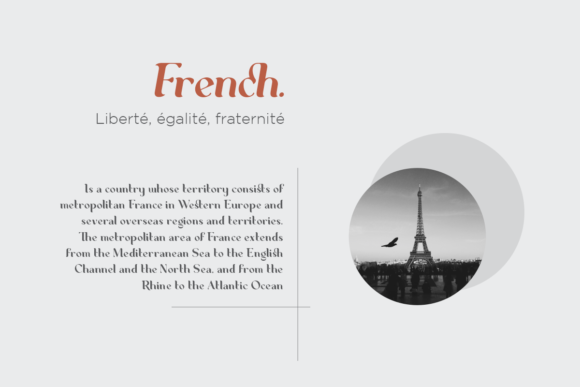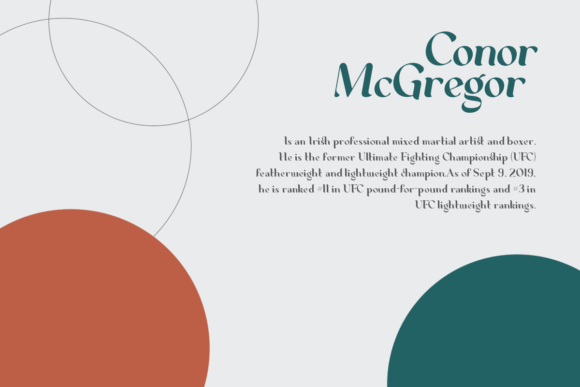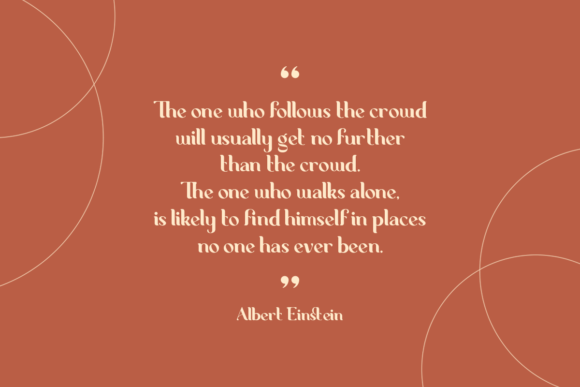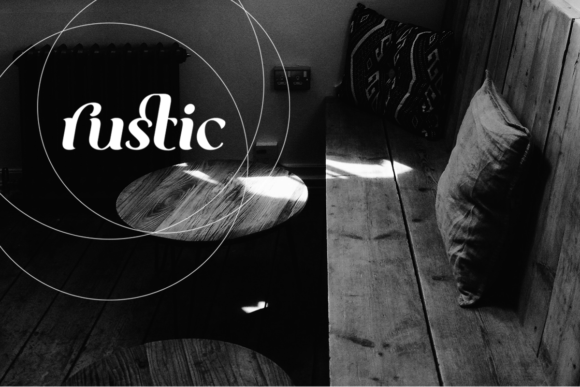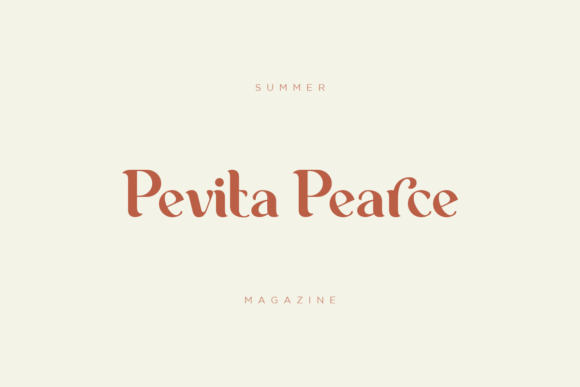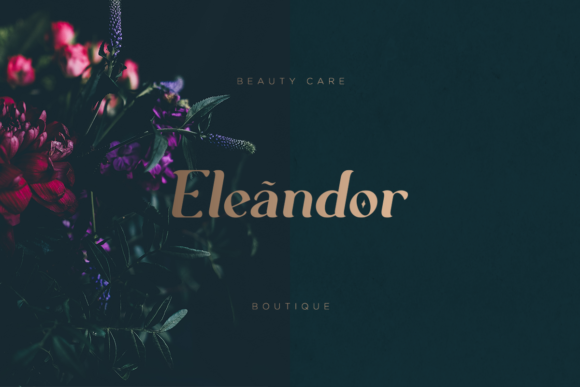
The George Font: A Timeless Serif Typeface with a Unique Charm
I’ll never forget the design project that led me to discover the George font. I was working on a branding project for a local bookstore, and I was struggling to find the perfect font that would convey a sense of warmth and sophistication. The client wanted a classic, elegant look that would appeal to book lovers of all ages. After hours of searching, I stumbled upon the George font, and it was love at first sight! 😍
The George font is a classic serif typeface with a unique character that exudes a peaceful charm. Its elegant lines, balanced proportions, and subtle flair make it perfect for designs that require a touch of sophistication and refinement.
- ✅ Elegant and refined design that’s perfect for high-end branding and luxury projects
- ✅ Wide range of OpenType features, including stylistic alternates and glyphs
- ✅ Highly legible and readable, even at small font sizes
- ✅ Works beautifully with images and illustrations
- ⚠️ Some users may find the font a bit too ornate or traditional for certain design projects
- ⚠️ Limited availability of condensed or italic versions
The Designer Inspiration Behind George
The George font was designed with inspiration from classic serif typefaces of the past. Its creator aimed to craft a font that would exude a sense of elegance and refinement, while still being highly legible and readable. The result is a timeless font that works beautifully in a wide range of design applications.
| Font Name | George Font |
| Author | Dharmas Studio |
Q: What is the George font best suited for?
A: The George font is best suited for designs that require a touch of elegance and sophistication, such as luxury branding, high-end packaging, and editorial design.
Q: Is the George font suitable for body text?
A: Yes, the George font is highly legible and readable, making it suitable for body text in designs such as books, magazines, and newspapers.
Q: Is the George font available in multiple languages?
A: Yes, the George font supports multiple languages, including English, French, German, Italian, and Spanish, among others.